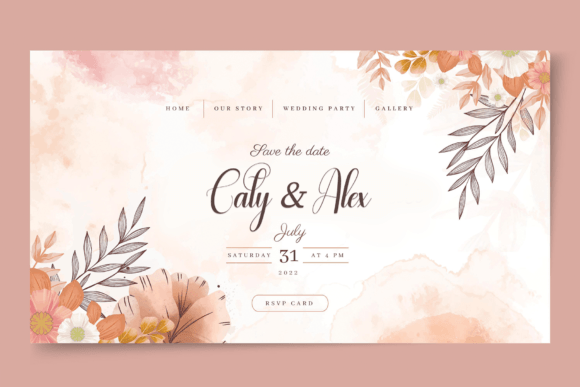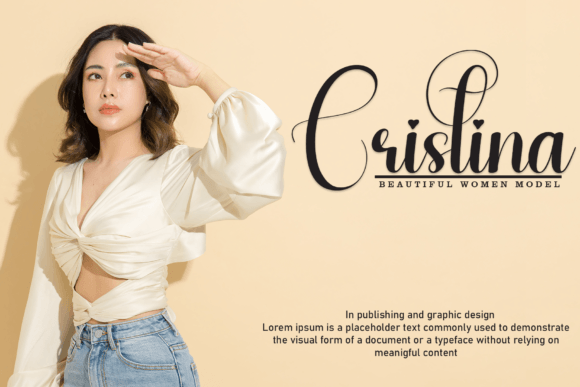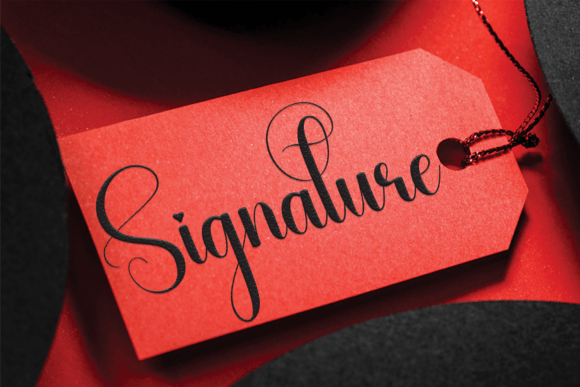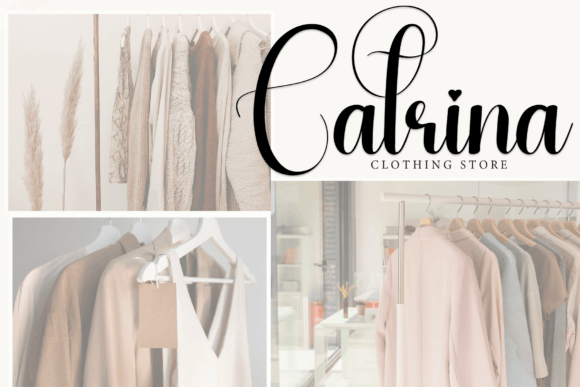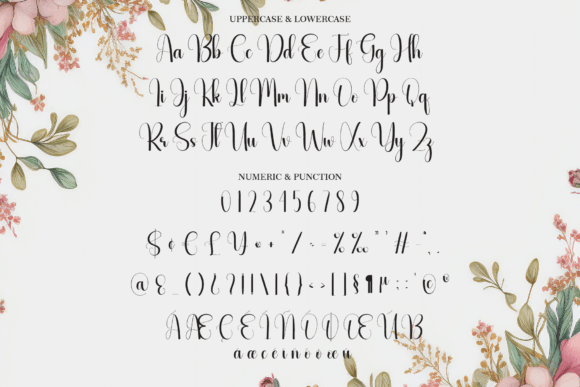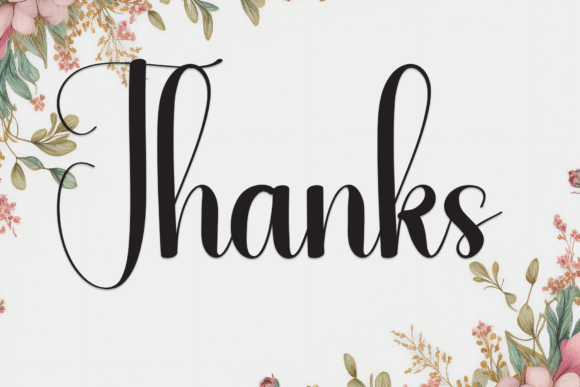
Discover the Charm of Authentic Font: A Sweet and Friendly Handwritten Delight
Are you on the hunt for a font that adds a personal touch to your designs? Look no further than Authentic Font, a sweet and friendly handwritten font that’s perfect for creating warm and inviting visuals. In this article, we’ll dive into the world of Authentic Font, exploring its features, benefits, and uses, as well as provide tips and inspiration for designers and crafters.
What is Authentic Font?
Authentic Font is a beautiful, handwritten font that’s fresh, neat, and full of character. Its sweet and friendly vibe makes it an ideal choice for designs that require a personal touch, such as wedding invitations, cards, and other special occasion materials. With its clean lines and elegant feel, Authentic Font is sure to capture the hearts of designers and crafters alike.
Features and Benefits of Authentic Font
So, what makes Authentic Font so special? Here are just a few of its key features and benefits:
- Handwritten charm: Authentic Font boasts a genuine, handwritten look that’s perfect for adding a personal touch to your designs.
- Fresh and neat: This font’s clean lines and elegant feel make it easy to read and visually appealing.
- Versatile: Authentic Font is suitable for a wide range of design applications, from wedding invitations and cards to posters, flyers, and more.
Uses for Authentic Font
Authentic Font is a versatile font that can be used in a variety of design applications. Here are some ideas to get you started:
- Wedding invitations and stationery: Add a touch of romance and elegance to your wedding designs with Authentic Font.
- Greeting cards and gift tags: Create personalized and heartfelt cards and gift tags with this beautiful font.
- Posters and flyers: Use Authentic Font to add a friendly and approachable feel to your promotional materials.
- Social media graphics: Bring a personal touch to your social media graphics, such as Instagram posts and Facebook covers, with Authentic Font.
Tips for Using Authentic Font
To get the most out of Authentic Font, here are a few tips to keep in mind:
- Pair with complementary fonts: Combine Authentic Font with other fonts that complement its style, such as serif or script fonts.
- Experiment with colors: Try out different color schemes to find the perfect match for your design and Authentic Font.
- Play with sizes: Use Authentic Font in various sizes to create visual interest and hierarchy in your design.
Authentic Font is a font that’s full of possibilities. Here are a few ideas to inspire you:
- Create a handmade feel: Use Authentic Font to create designs that look like they were made by hand, such as craft tutorials or DIY blogs.
- Add a personal touch: Use Authentic Font to add a personal touch to your designs, such as in photo captions or quotes.
- Design for special occasions: Use Authentic Font to create beautiful and memorable designs for special occasions, such as birthdays, anniversaries, or graduations.
In conclusion, Authentic Font is a sweet and friendly handwritten font that’s perfect for designers and crafters looking to add a personal touch to their designs. With its fresh and neat style, versatile uses, and ease of use, Authentic Font is sure to become a favorite in your design arsenal. So why not give it a try and see the charm of Authentic Font for yourself?